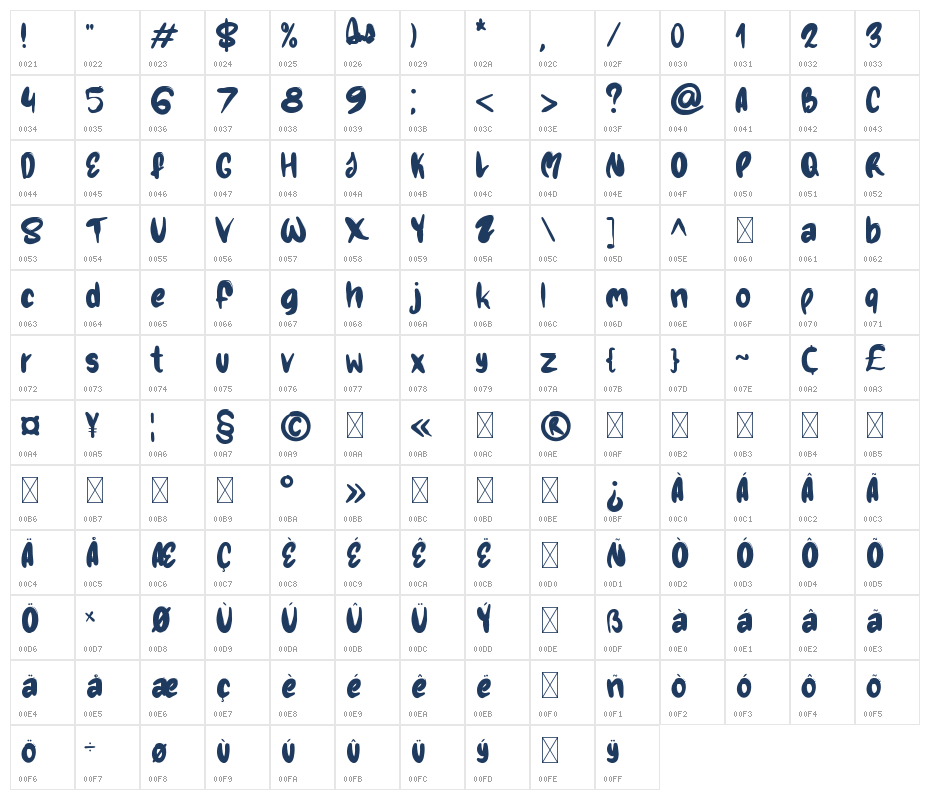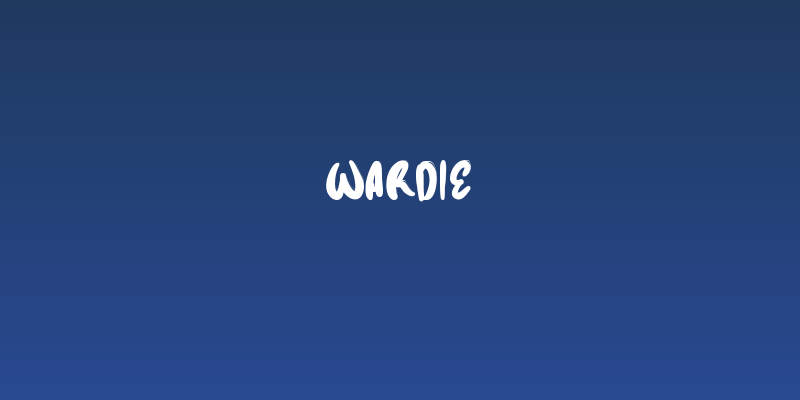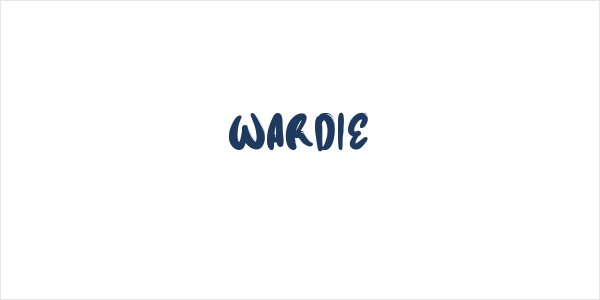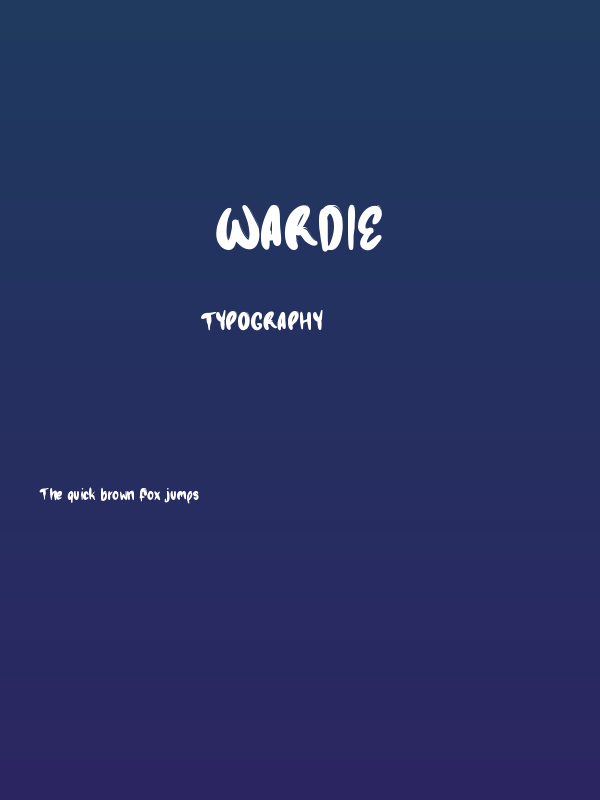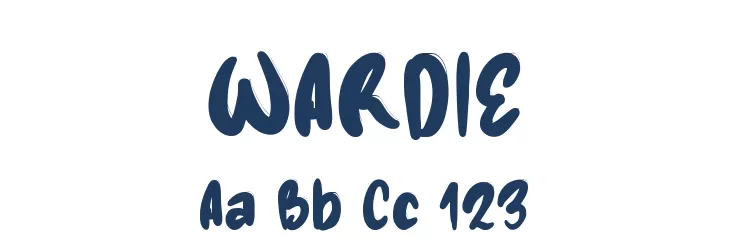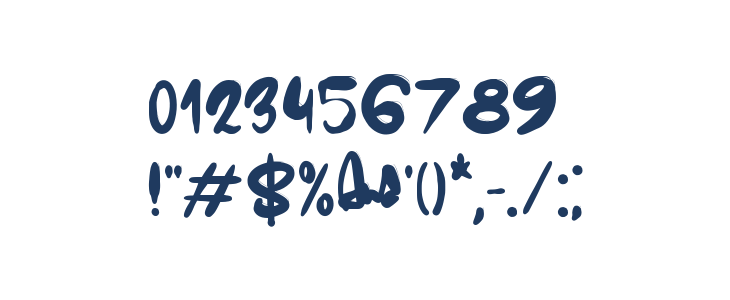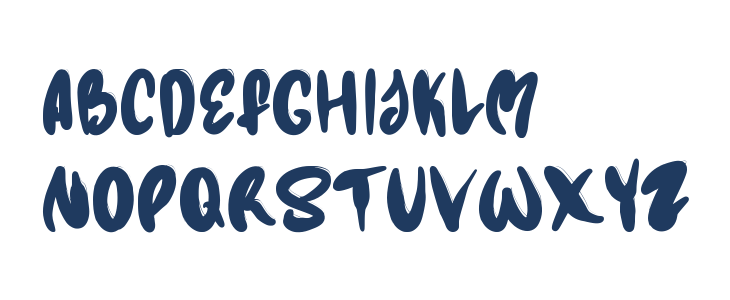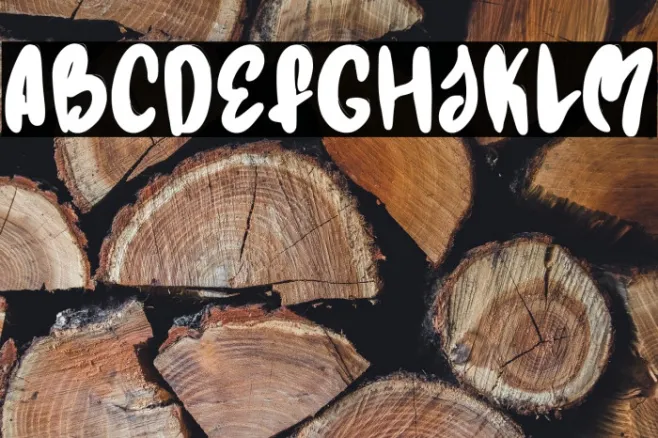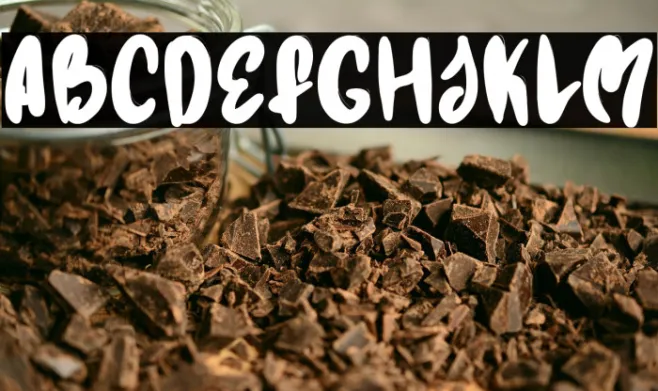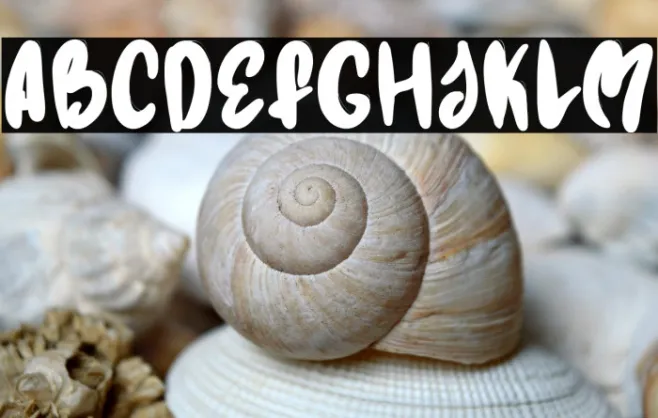
WARDIE Font
WARDIE Description
A playful, bold, handwritten style font with rounded edges and a casual appearance.
| Overall Style | Casual, Playful, Handwritten |
| Use Case | Headlines, Logos, Posters, Children's materials |